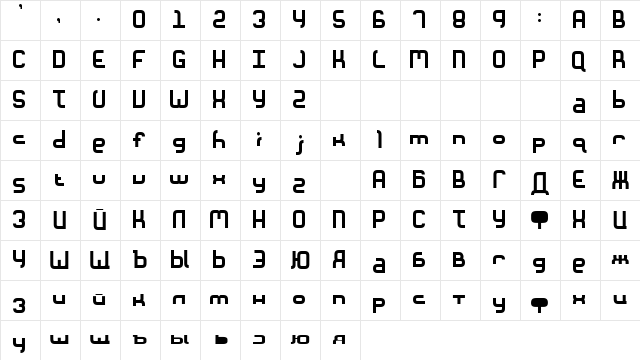
Macaroni Regular
Designer: FT Content Provider
Design Context for Macaroni
Macaroni is a composed and adaptable typeface that performs quietly and consistently across a wide range of design contexts.